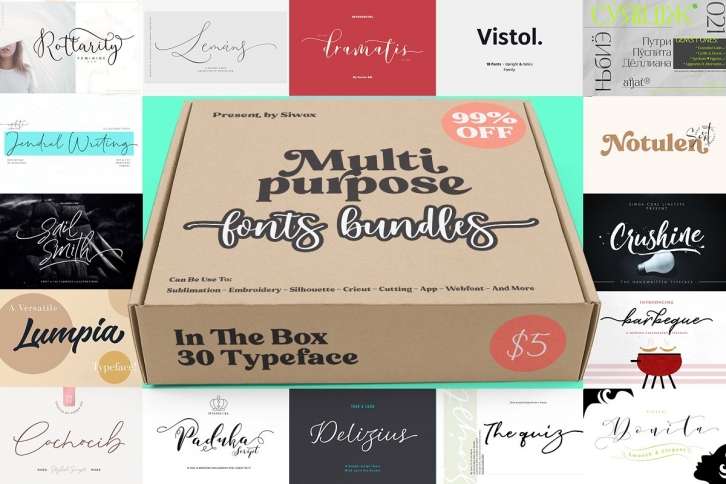
NEW 30 MULTIPURPOSE FONTS BUNDLE!
This bundle includes a varied range of font styles such as, Serif, Sans Serif, calligraphy, signature, brush lettering, hand lettering, script and more. With hundreds of glyphs, including alternates, ligatures, swashes, and international language support